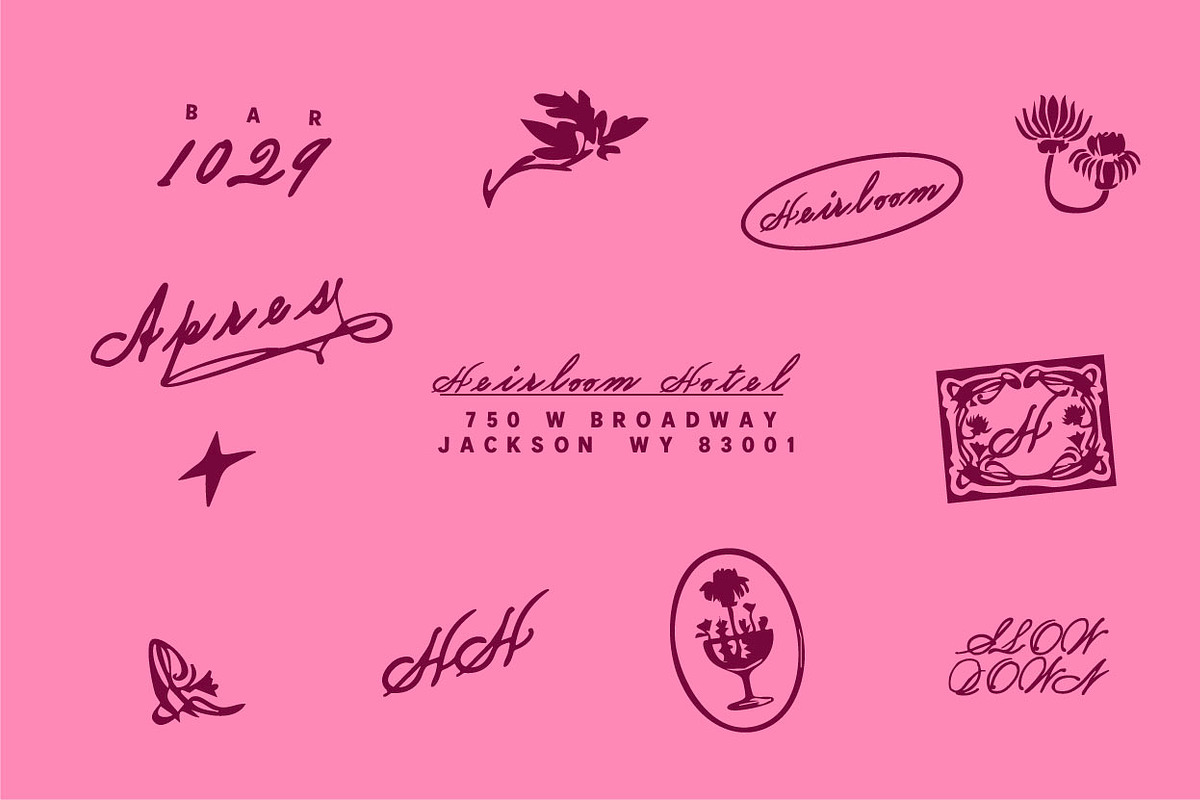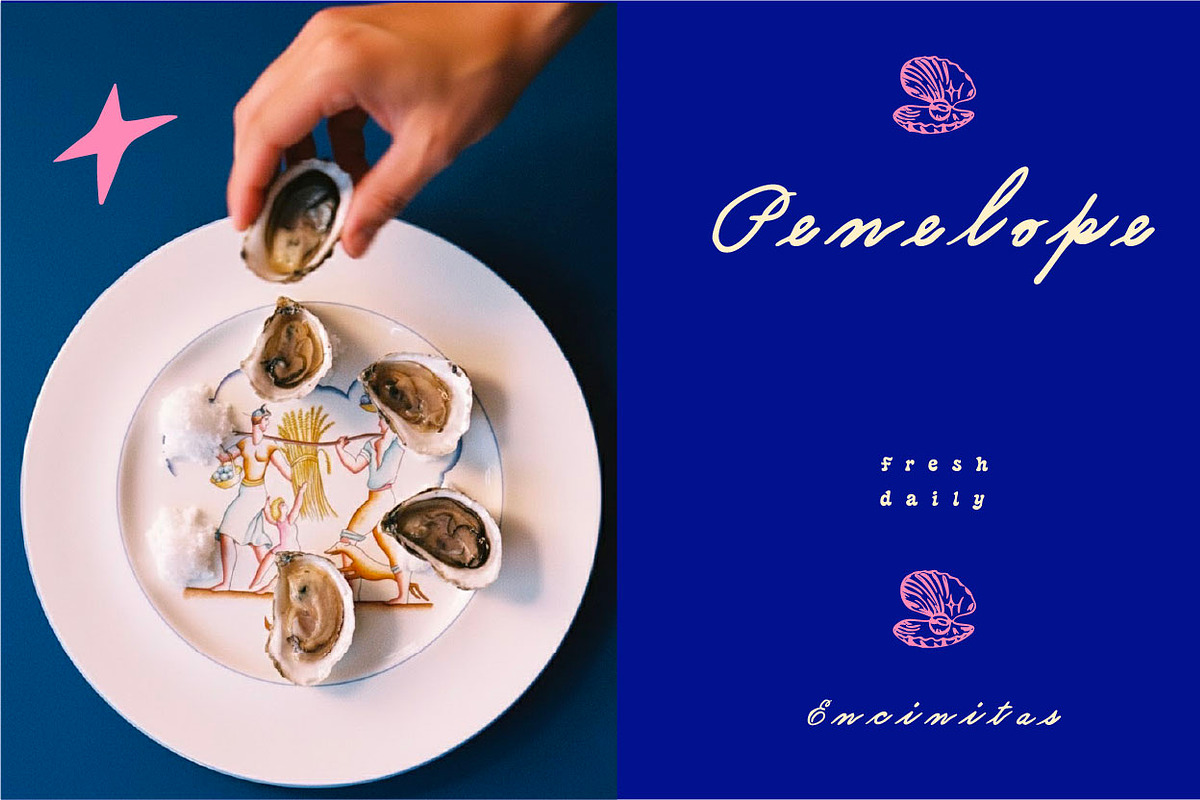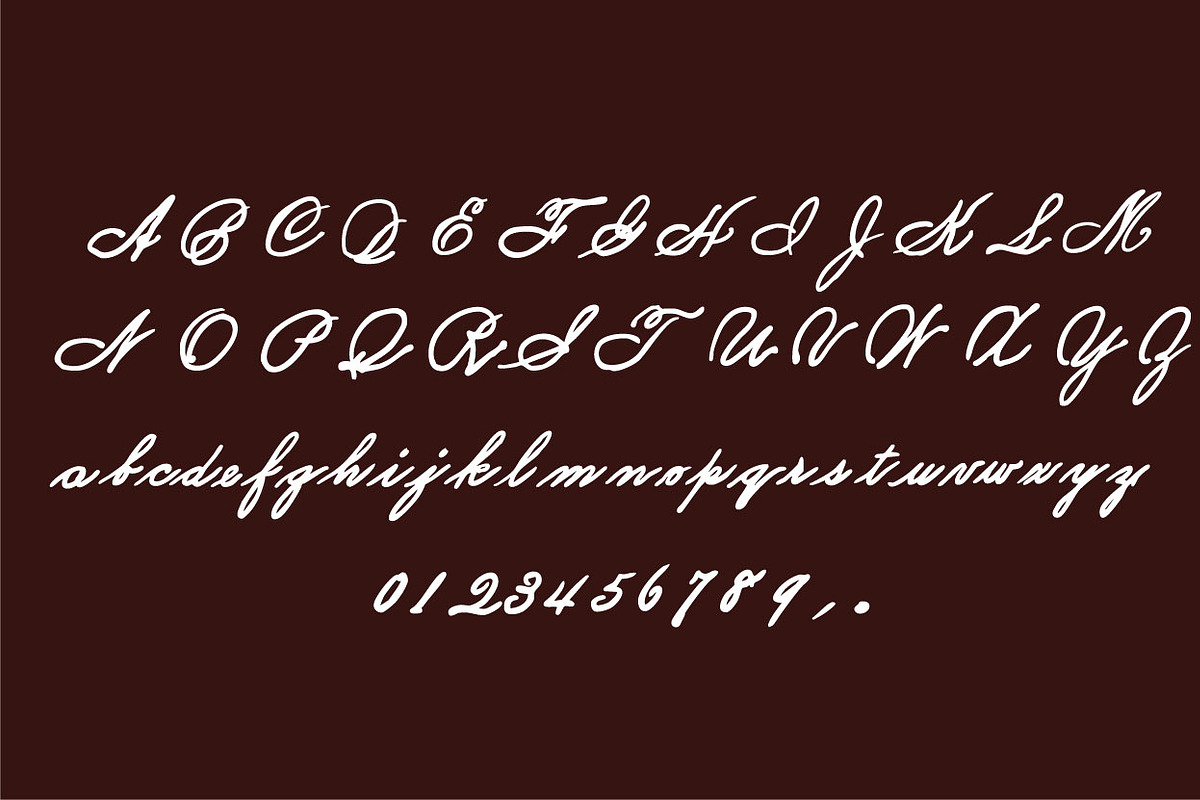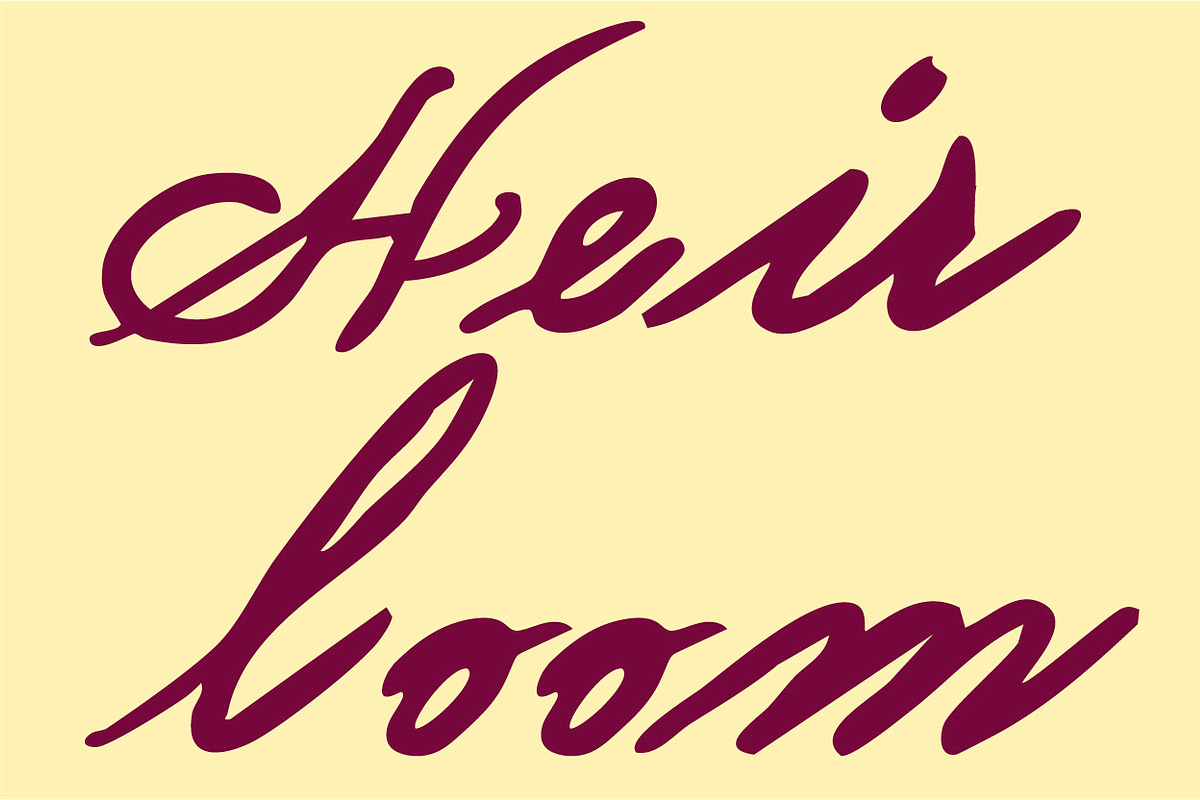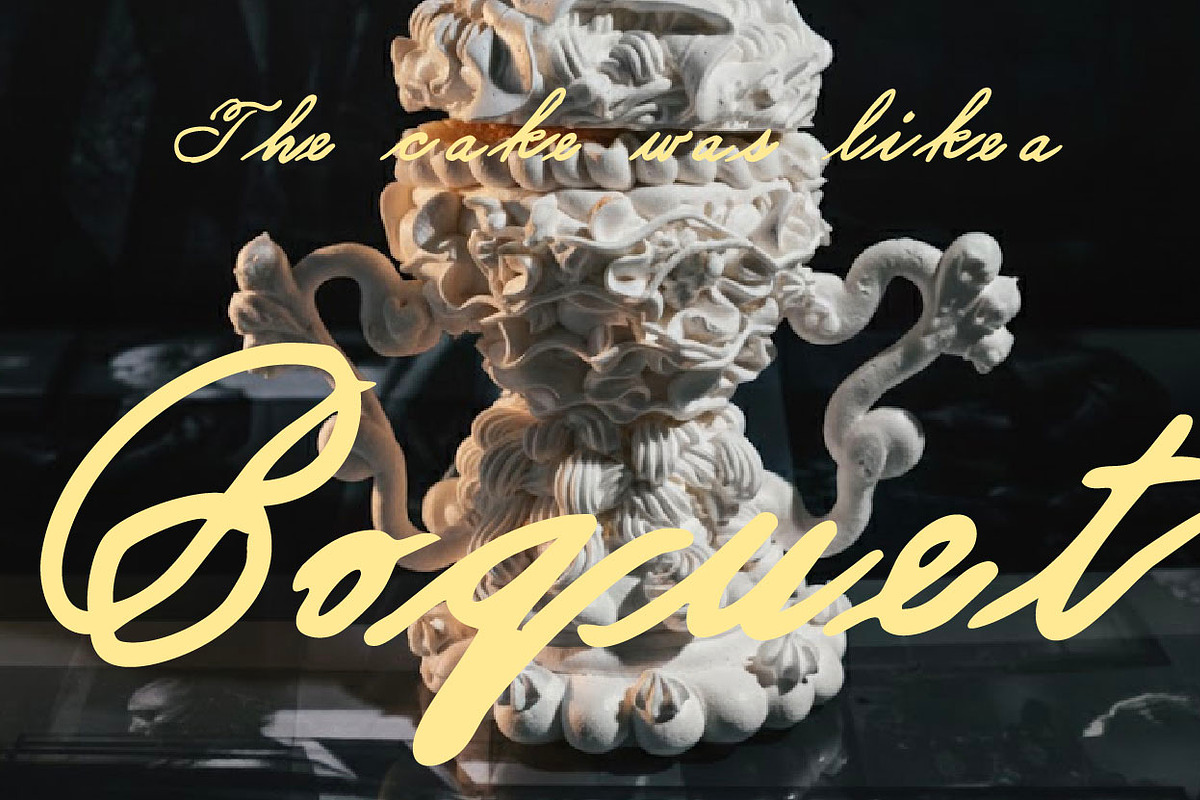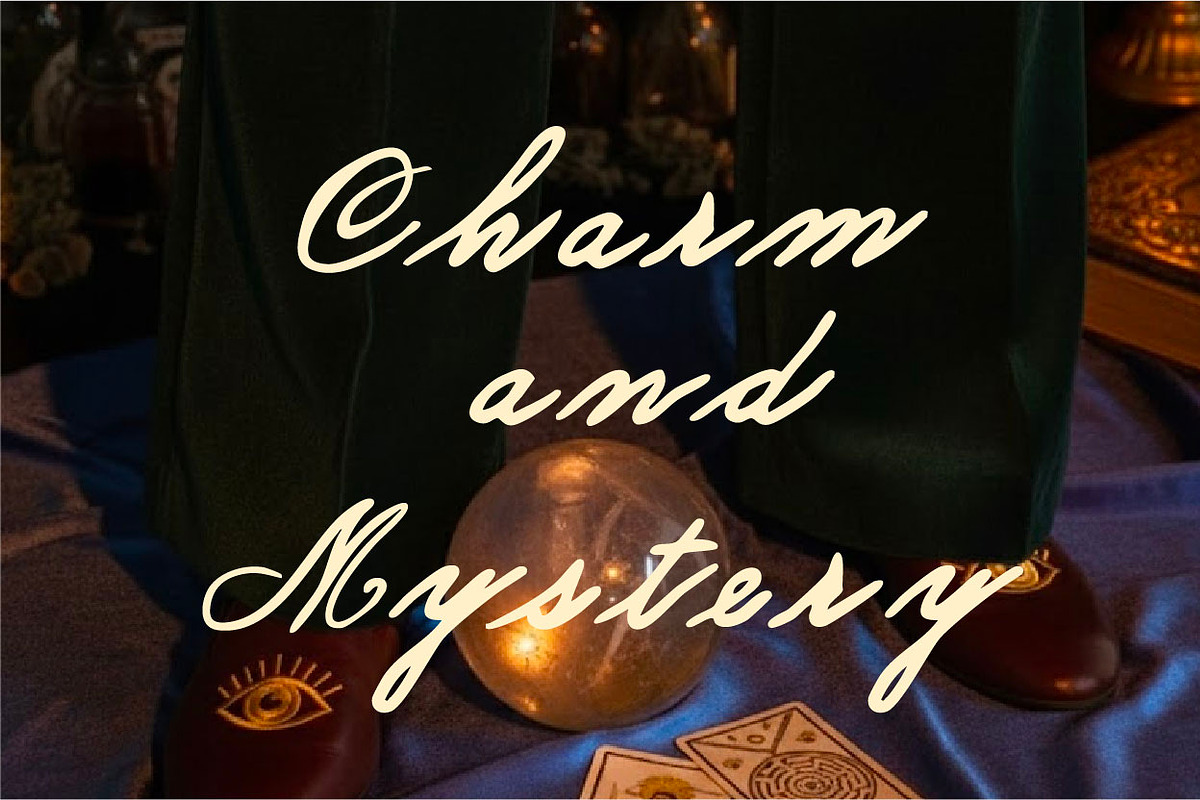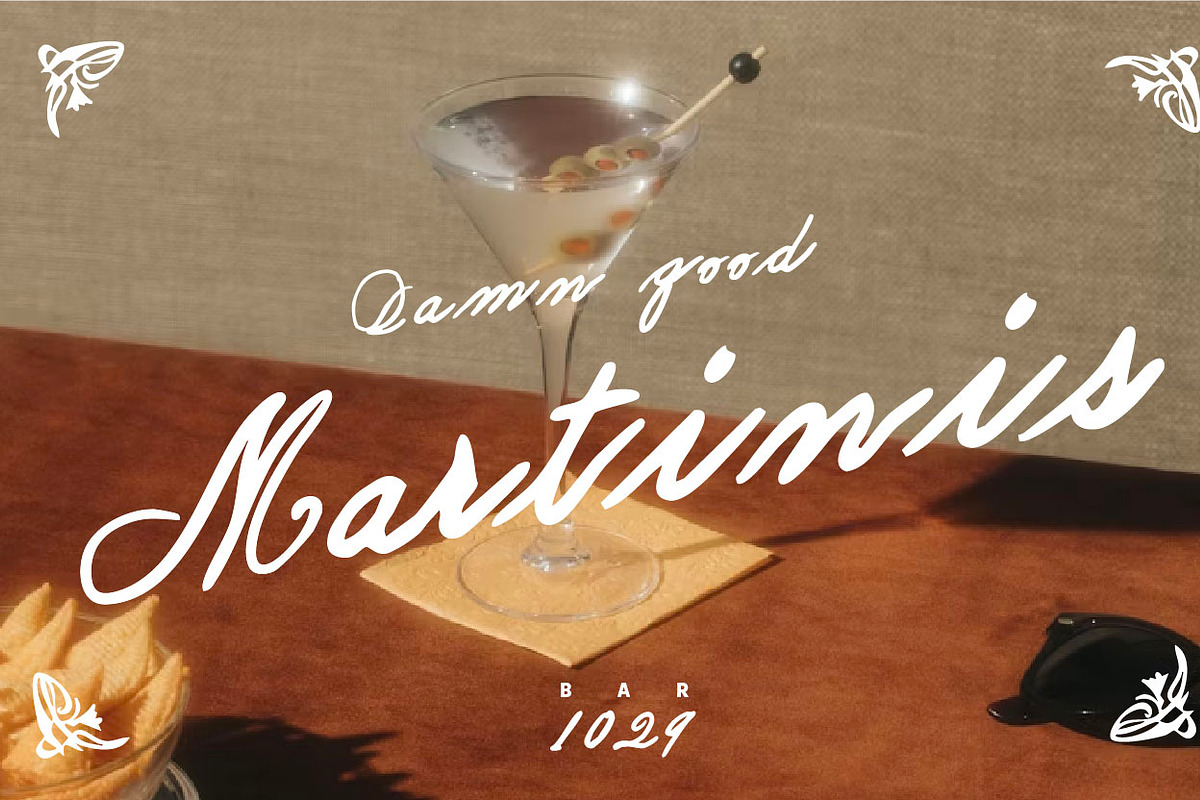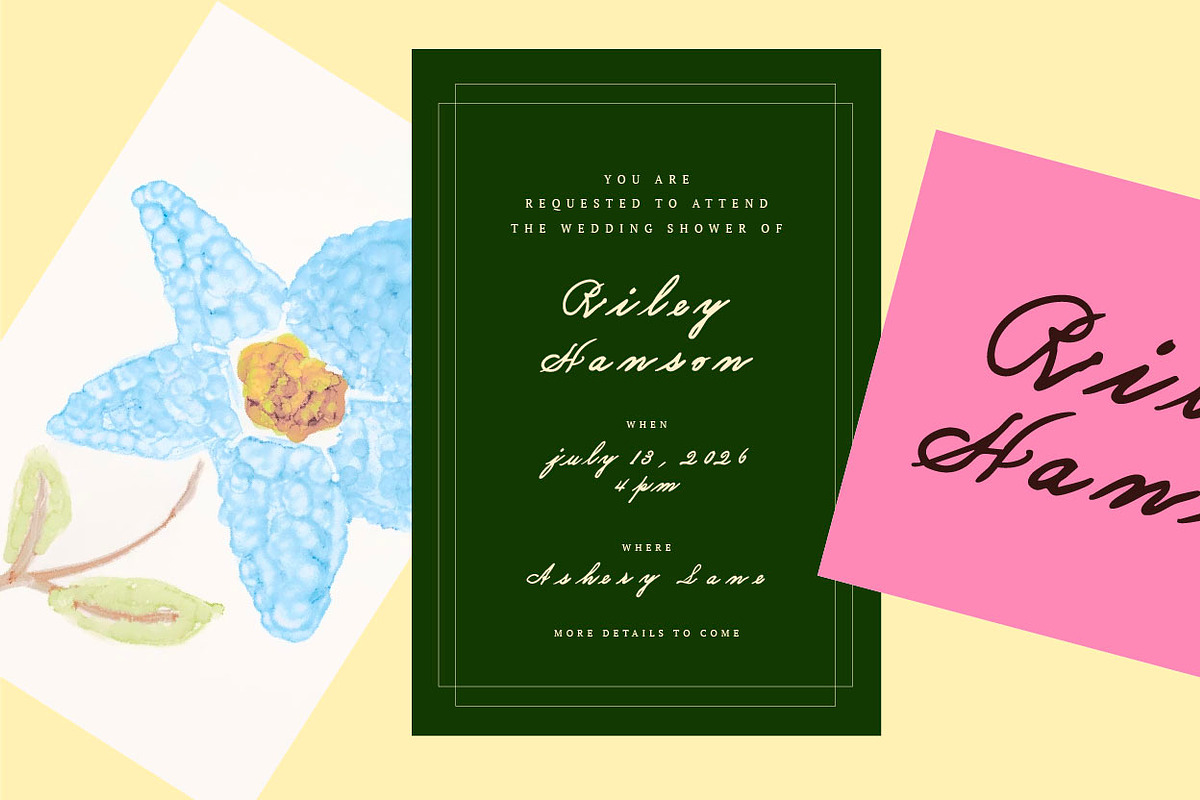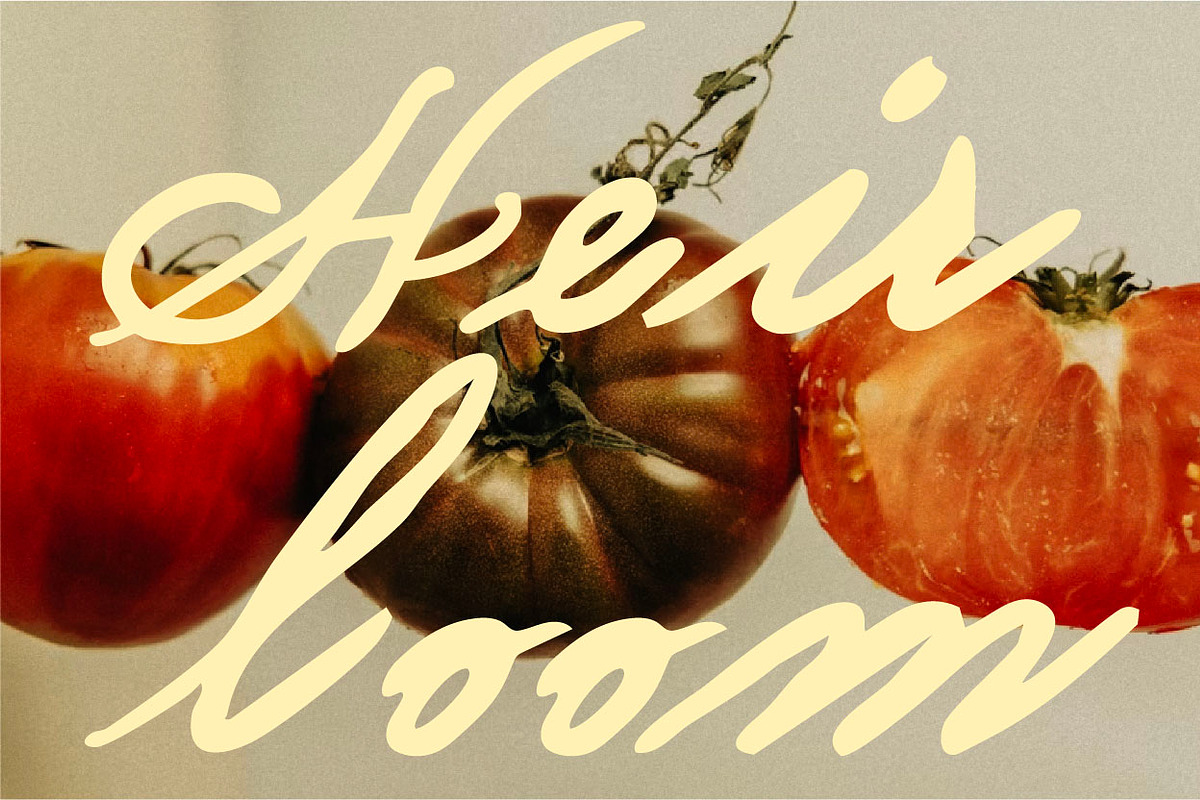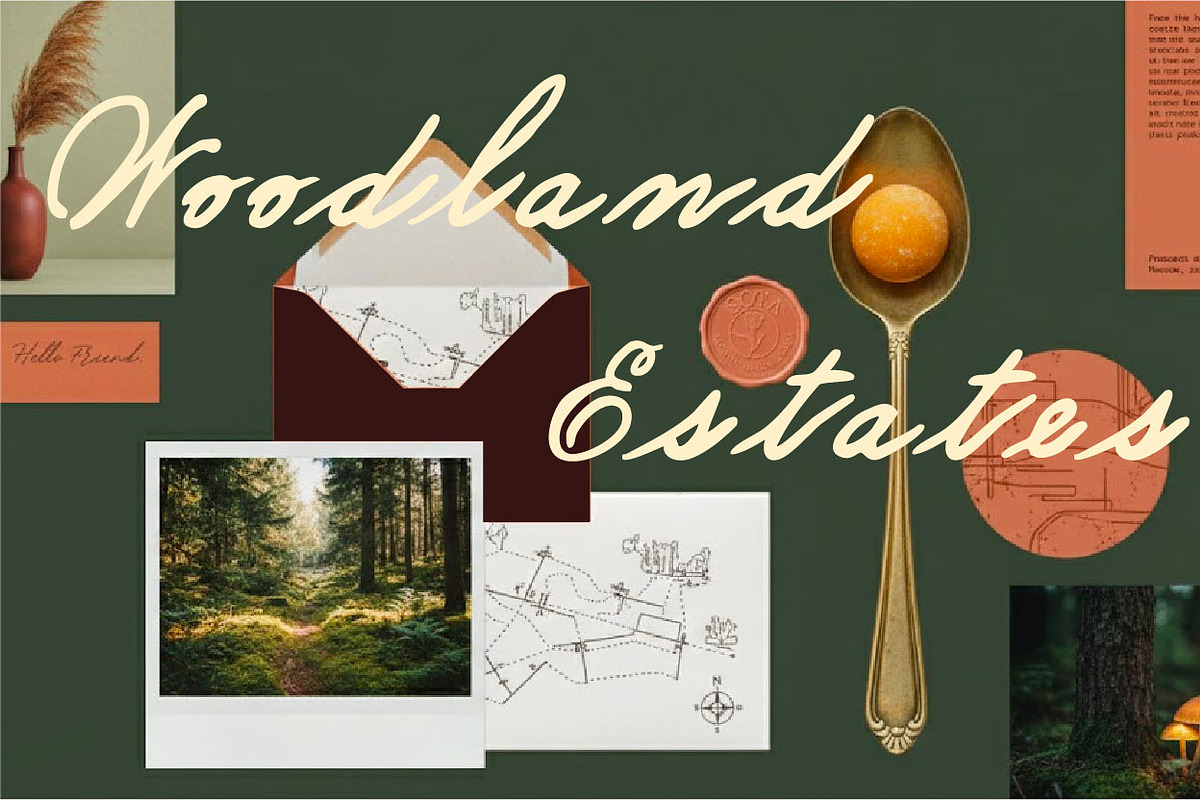
Heirloom - Decadent Handwritten font
Embrace the next wave of wedding artistry with Heirloom, a decadent handwritten script designed for the intentional couple. Inspired by the shift toward theatrical opulence and cinematic storytelling, Heirloom is more than a font—it is a signature element for celebrations that feel like "living art".
As we look toward 2026, wedding design is moving away from flat neutrals into a space of rich texture and moody drama. Heirloom captures this "lived-in" elegance, offering an expressive, slightly imperfect flow that feels like a love note you’d never throw away.
Why Heirloom is Perfect for 2026 Trends: The New Decadence: Perfectly complements the rise of "Opera Aesthetics"—think sweeping velvet drapery, rich red roses, and candle-drenched tablescapes.
Archival Artistry: Ideal for archival-quality stationery and personalized keepsakes. Use it for hand-painted illustrations, wax seals, and deckled-edge invitations that guests will want to frame.
A Touch of Nostalgia: Fits seamlessly into the "Medieval Romance" and "Vintage-Inspired" themes, adding a layer of folklorish symbolism and old-world charm to modern layouts.
Intentional Details: Elevate the guest experience with Heirloom on on-site favor engraving, "embroidered" cake motifs, or even laser-cut place settings.
The 2026 Palette: This script is the perfect anchor for the year’s most anticipated colors—from lush forest greens and velvety burgundy to the soft, buttery glow of buttercream and ivory.
Heirloom is designed for the couple who believes that every detail should have meaning. Whether it’s for a grand ceremony "in-the-round" or an intimate "micro-luxury" shower, Heirloom brings a sense of grandeur and intimacy to every word.